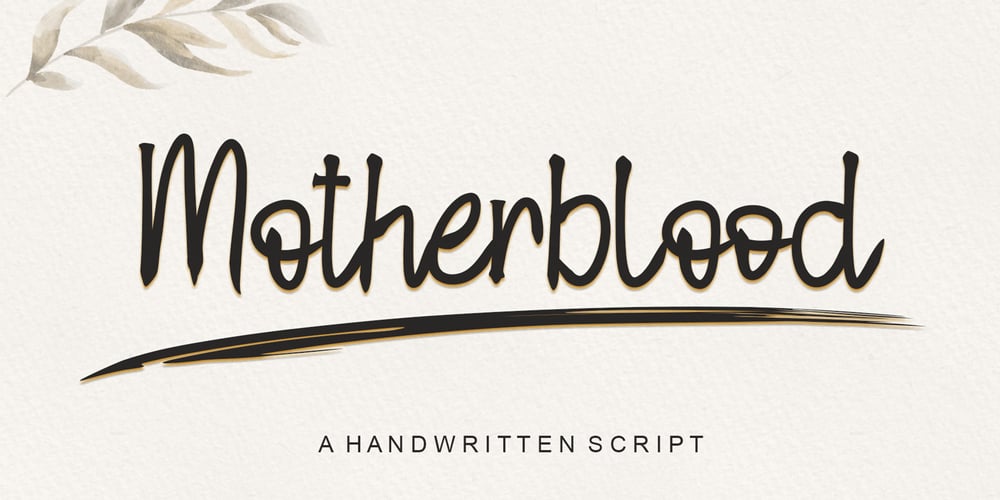
Motherblood Font Family was designed by Ahmad Afandi and published by Letterafandi Studio. Motherblood contains 1 styles and family package options. Motherblood is a sweet and friendly handwritten font. Its natural and unique style makes it incredibly fitting to a large pool of designs. The only limit is your imagination!